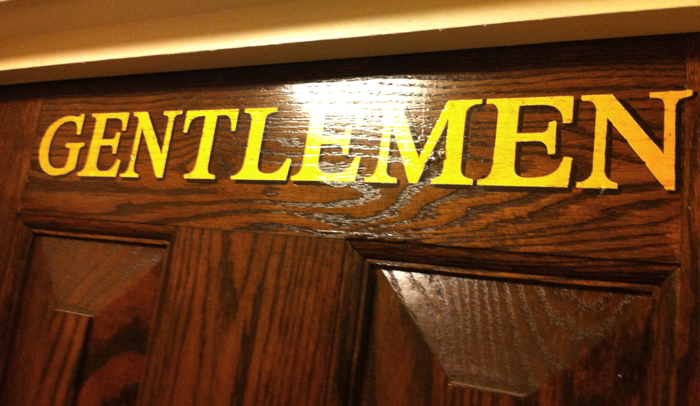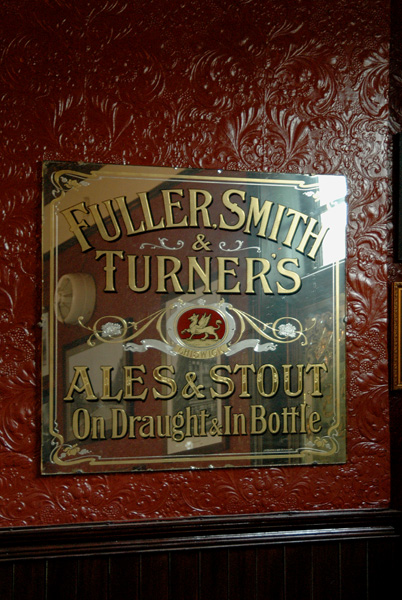
I came across some attractive mirrors at a pub over the weekend. When studying them very closely, I noticed that the shade was jagged along the edge, as though it was printed. Do signs like this get printed at all? The lettering is definitely hand drawn, as there are subtle differences in the letters.
Would anyone be able to shed any light on these pieces please?
There was some examples of beautiful sign-writing on the doors around the pub.
Hi Jack. I've seen quite a few of these Fuller pieces over the years. Everytime I get to London I'll spend time in search of these. There are sooooo many Fuller, Smith and Turner's glass pieces about I can't imagine they weren't printed over gold and silver in some manner. I've sent this link off to someone who might know more than I as I've never had the chance to see the back of one nor have I looked "THAT" closely. I certainly will on next visit.
I believe it's a silk screening process. I've been researching it some more. Designs can be painted or drawn up then made into a screen for multiple productions. Thanks for your reply!
Hi Again....I have used that process many many times. Its the jagged edges you mention that bother me. You do get saw-toothing with direct emulsion over a course screen but at that time there's no possibility that they were doing that. Hand cut screens or a method of painting a resist on the screen is pretty likely.
Wow that mirror looks identical! The print technician showed men's one screen printing she did on a window at Uni and it also had the jagged edges from the mesh screen. It's only noticeable up close and by those who care to study them in detail. So I think it's safe to say we are in te minority of people it bothers haha
Do you know what date these were produced?
Mine is a guess only at early part of last century. Just a guess because of the Art Nouveau-ish border. We'll have to hope someone knows something more. Pretty great stuff eh?